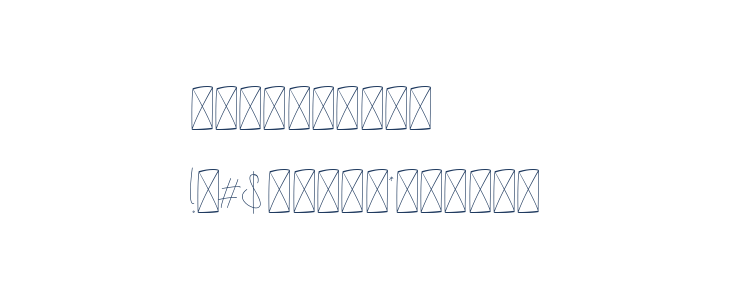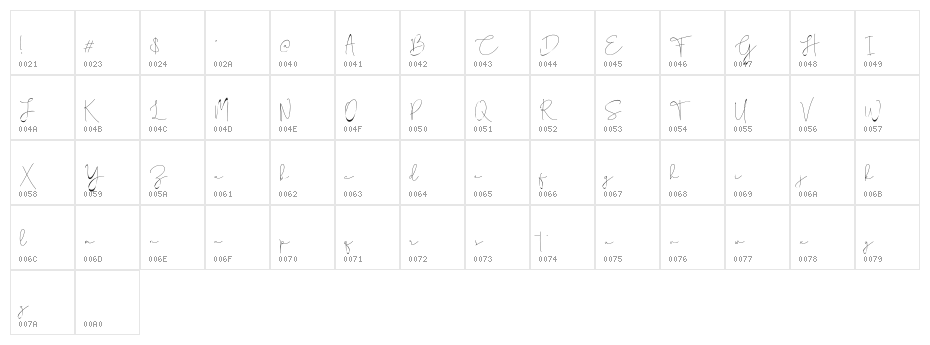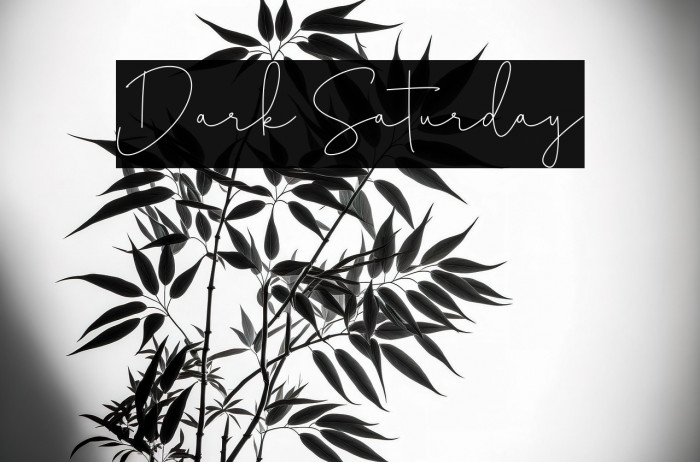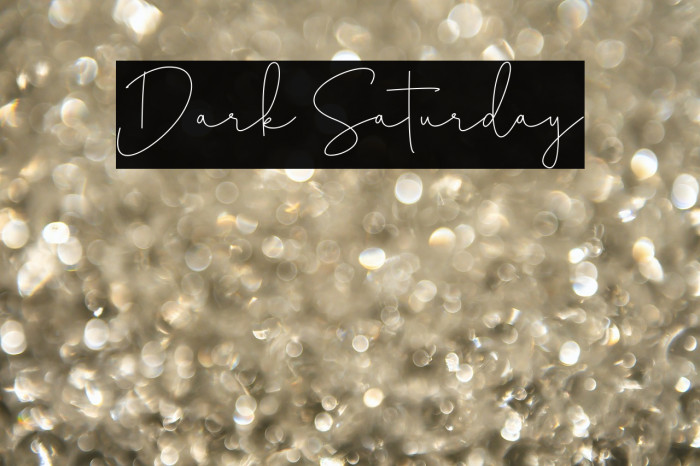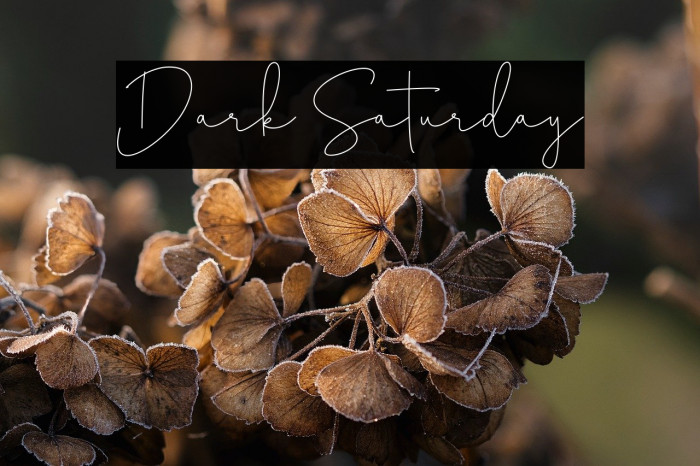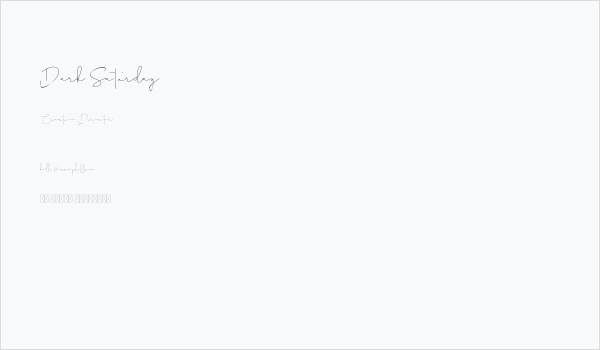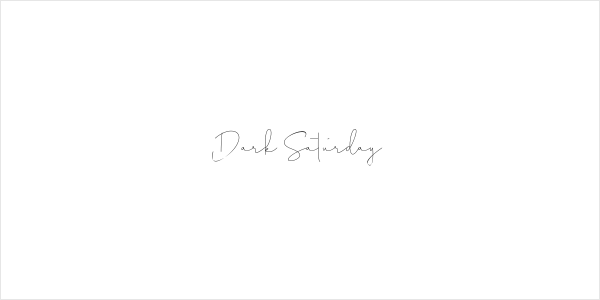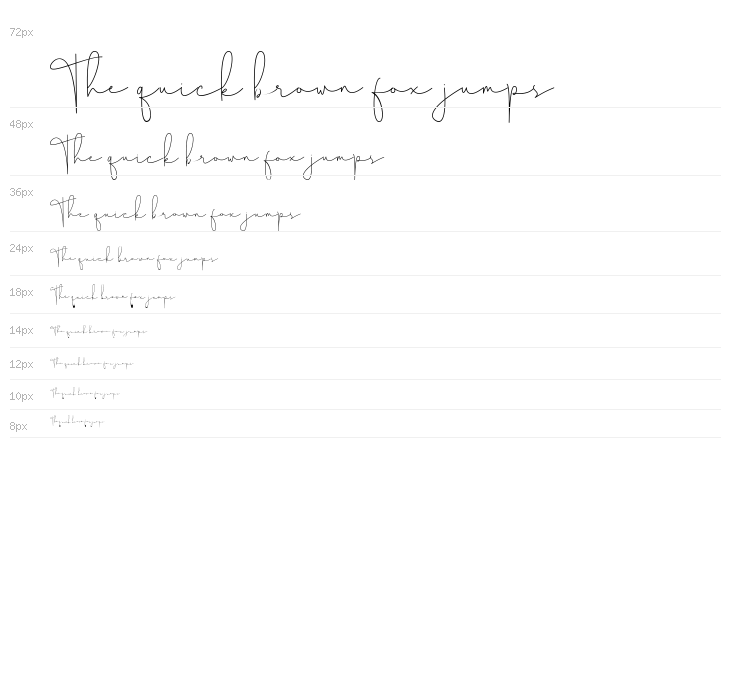
Dark Saturday Font
Dark Saturday Description
This font features a delicate, handwritten style with a whimsical and artistic flair. The letters are characterized by their thin, flowing lines and elegant curves, giving them a graceful and airy appearance. The uppercase letters are slightly more structured, while the lowercase letters exhibit a more freeform, cursive style. The overall design is light and breezy, with a sense of movement and fluidity. This font is perfect for adding a personal touch to any project, with its unique blend of sophistication and playfulness. The special characters maintain the same thin, elegant lines, ensuring consistency throughout the font.
| Proposed Projects | Ideal for wedding invitations, greeting cards, personal branding, and artistic projects. |